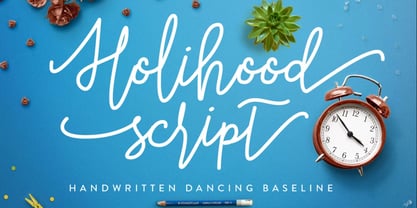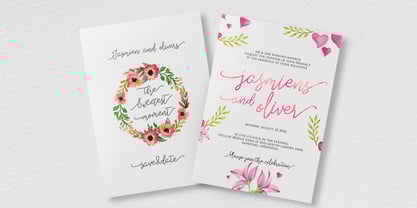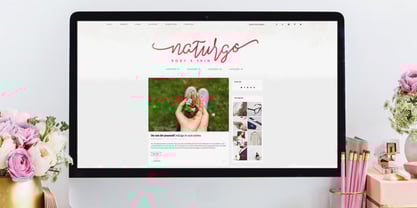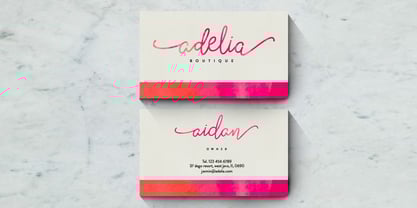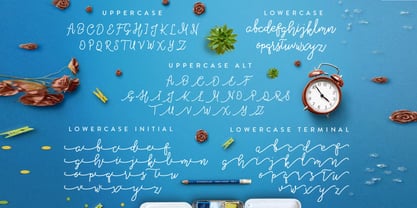
Holihood
by Maghrib Type
The Holihood Font Family was designed by Rizky Setyaludin and published by Maghrib Type. Holihood contains 1 styles. More about this family
Holihood Script is a charming handwritten font that brings a lively, authentic, and modern touch to your creative projects. With its playful dancing baseline and smooth flowing strokes, this script exudes warmth and personality, making it the perfect choice for designs that need a friendly yet stylish vibe. This font comes with a full set of uppercase and lowercase letters, alternates, initial and terminal forms, giving you endless possibilities to customize your typography. Whether you’re crafting elegant wedding invitations, heartfelt greeting cards, stylish logos, branding projects, or eye-catching social media posts, Holihood Script will instantly add a personal, handwritten feel. Its natural curves and artistic flow capture the essence of real handwriting—perfect for designers who want to stand out with a font that’s both trendy and timeless. Features: Uppercase & Lowercase Letters Alternate Characters (Uppercase & Lowercase) Initial & Terminal Letter Variations Smooth Handwritten Style with Dancing Baseline Perfect for Invitations, Branding, Logos, Social Media, and More Bring your designs to life with Holihood Script—a handwritten font full of charm, creativity, and elegance.
Designers: Rizky Setyaludin
Foundry: Maghrib Type